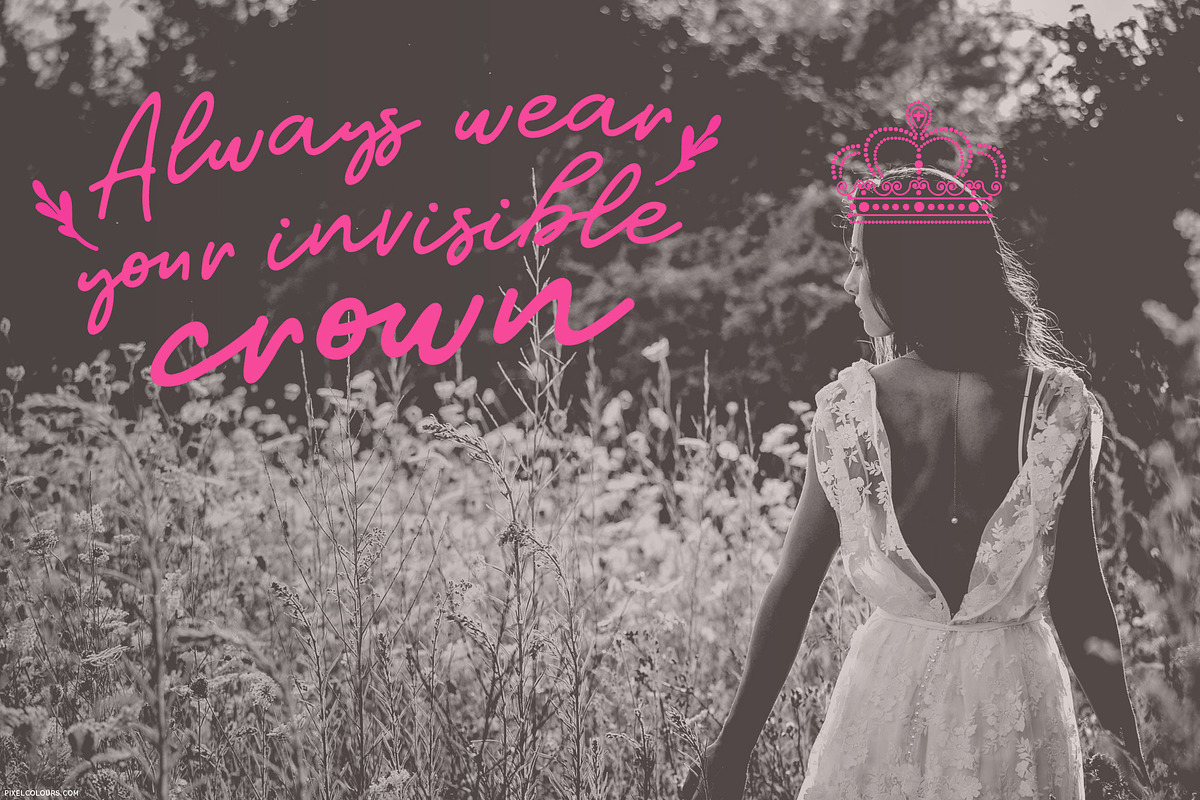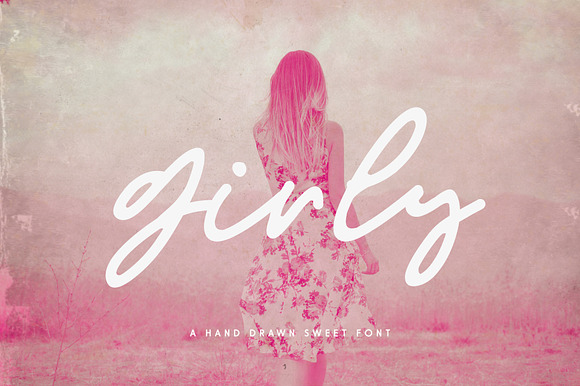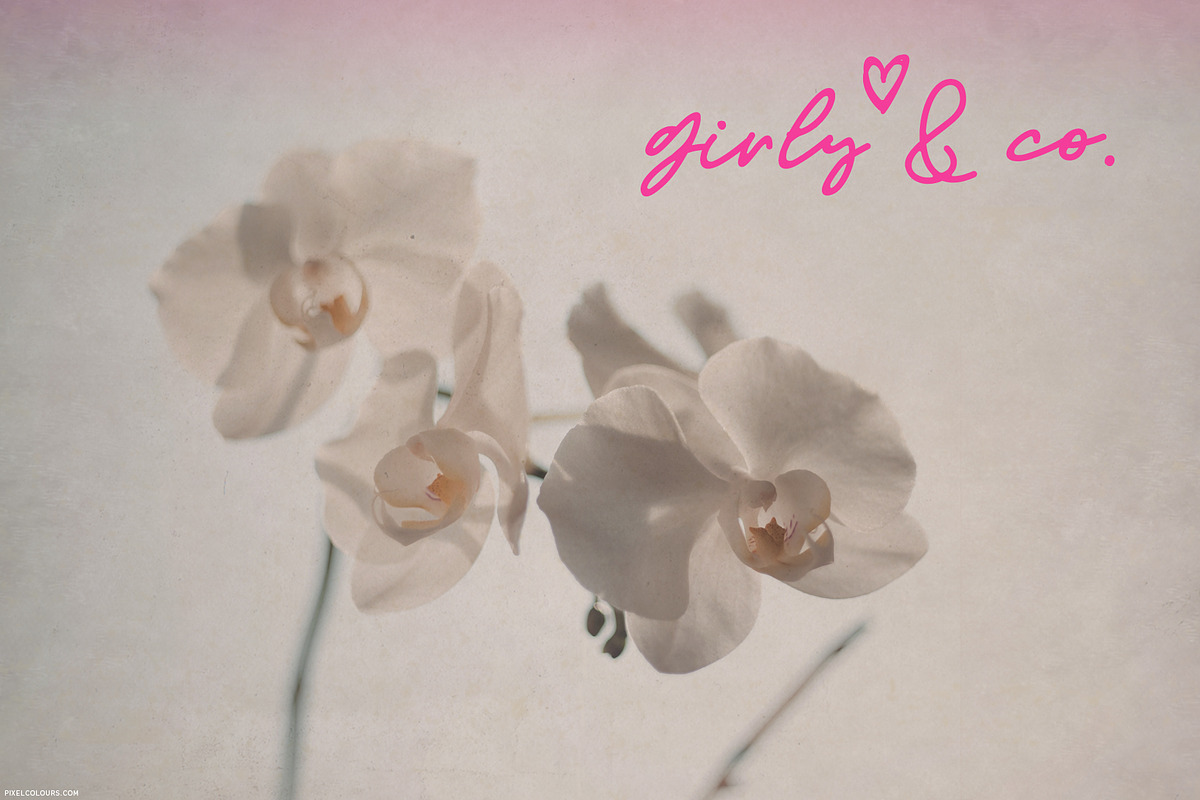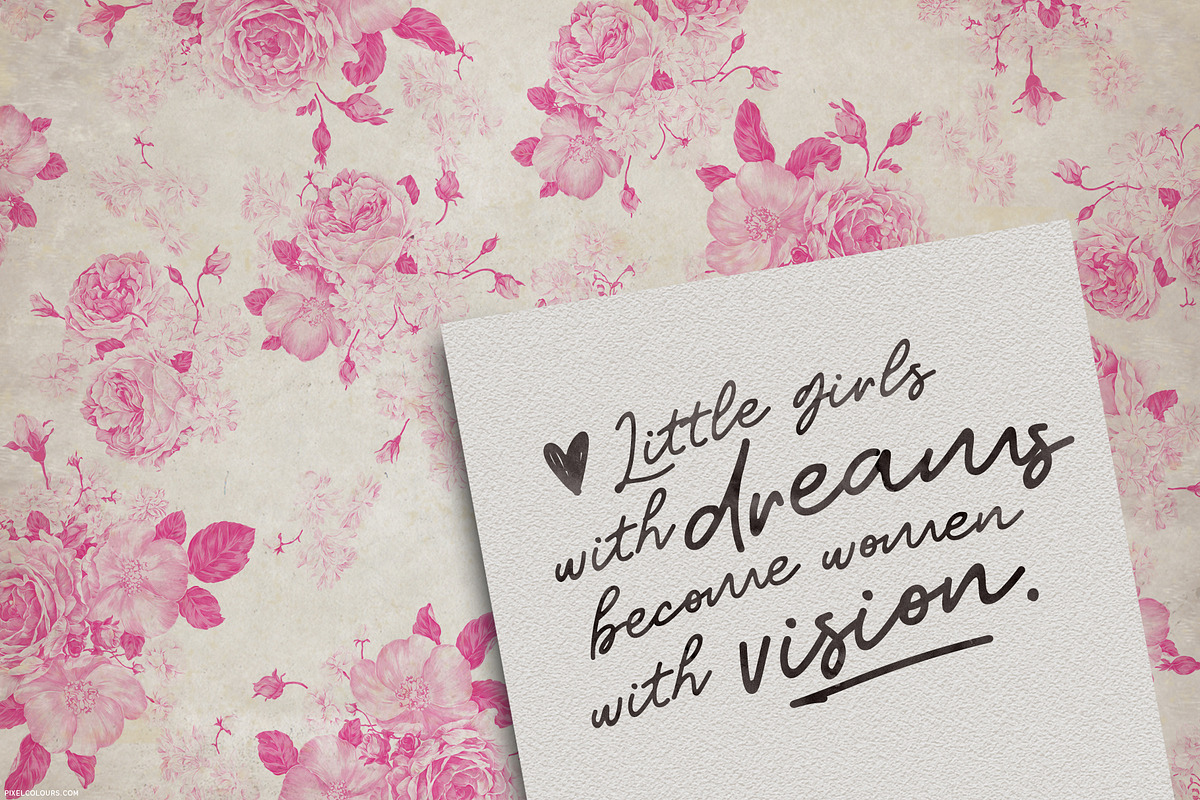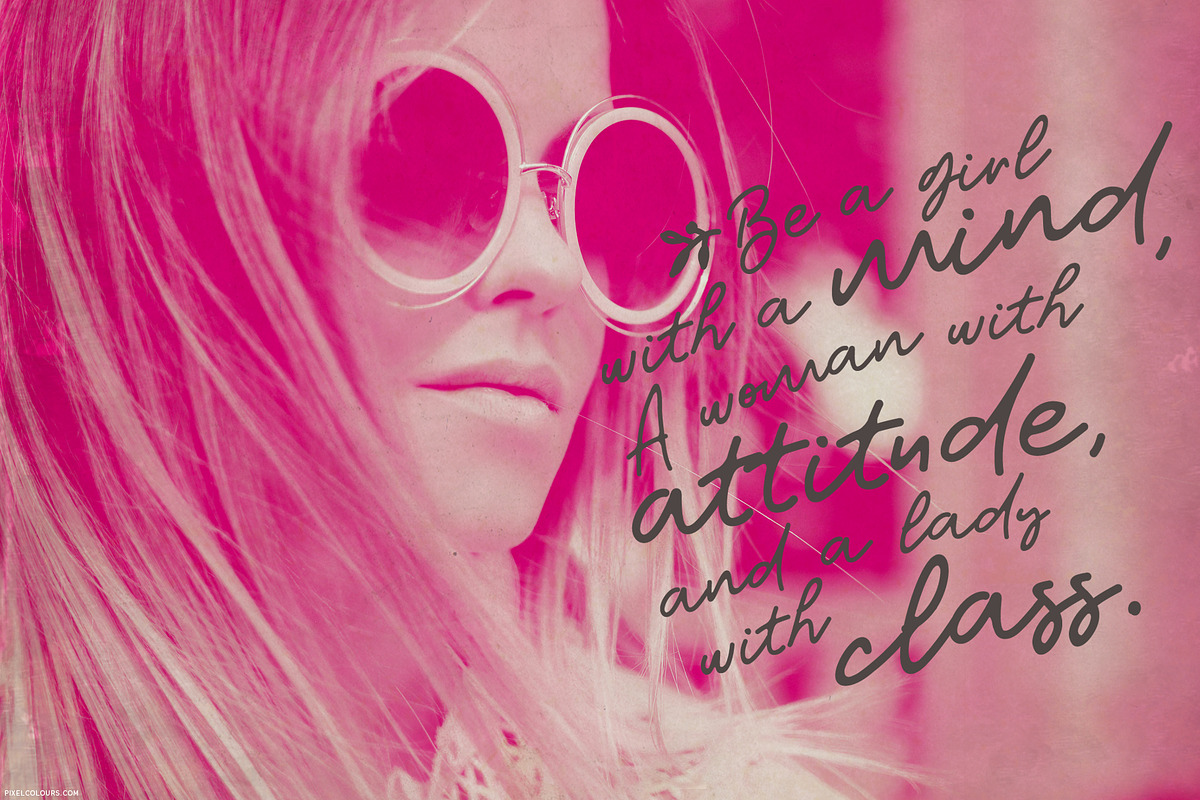
Girly Feminine Script Font
A girly script font with an imperfect touch but with a clean finish that makes it great for any project.
Ideal to make quotes, greeting cards, wedding invitations or anything girly and modern.
Give a sweet touch to your design by adding any of the ornaments included in a second font!
Uppercase and lowercase characters.
Numbers and punctuation.
- ORNAMENTS Give a sweet touch to your design by adding any of the ornaments included in a second font!